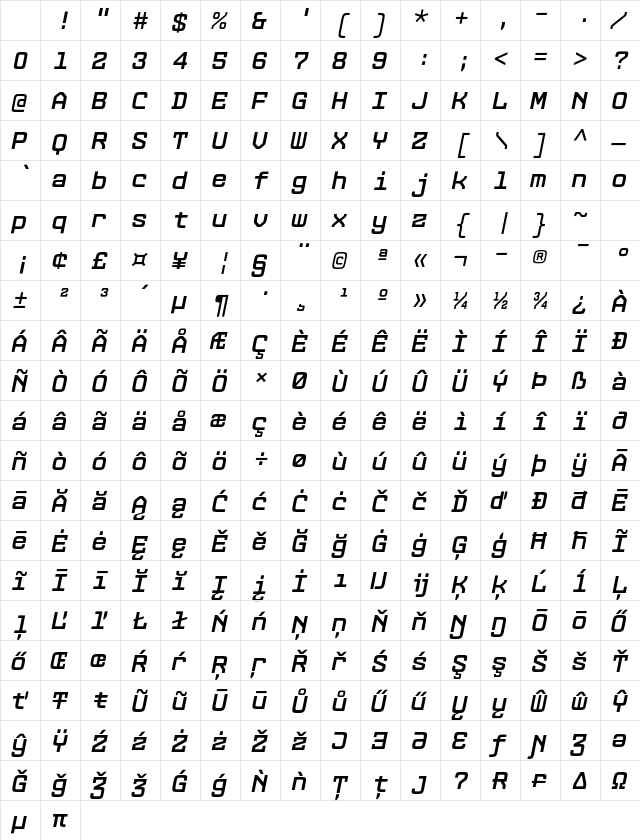
Complete Dekatron SemBd Italic glyph index. Displaying only characters natively supported by Dekatron SemBd Italic font.
Dekatron SemBd is a composed and adaptable typeface that performs quietly and consistently across a wide range of design contexts. The slanted form adds forward momentum and visual energy.